Awasome Unique Script Fonts 2022
Awasome Unique Script Fonts 2022. Check out our unique script font selection for the very best in unique or custom, handmade pieces from our shops. Bouchyl | unique handwriting script font with a calligraphy style, so beautiful on invitation like greeting cards, branding materials, business cards, quotes, posters, and more!.
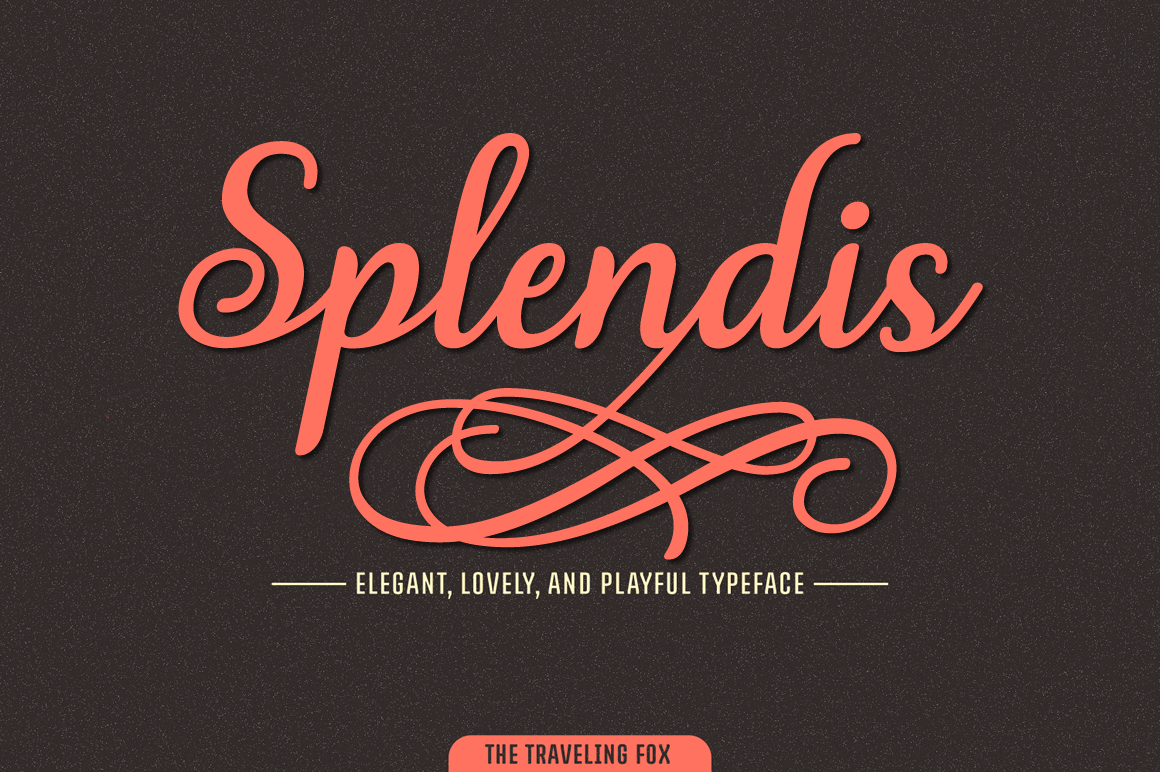
This Contemporary Script Font Comes With Letters Having A Calligraphic Style And Creates A Unique Look Overall.
Create text graphics with script fonts. Bouchyl | unique handwriting script font with a calligraphy style, so beautiful on invitation like greeting cards, branding materials, business cards, quotes, posters, and more!. Reybro unique script font description unique script font.
Distinct style script alt •. In styles ranging from casual and warm to formal and elegant, these script font sets are inspired. This unique script font is also.